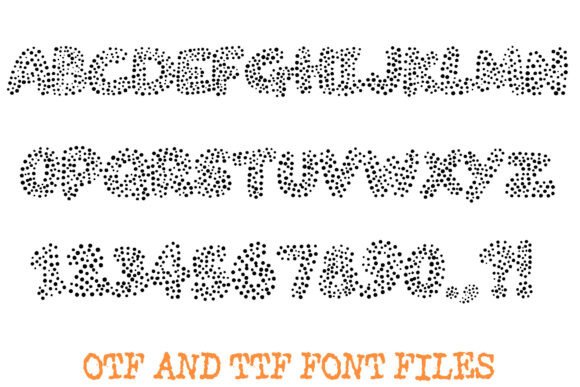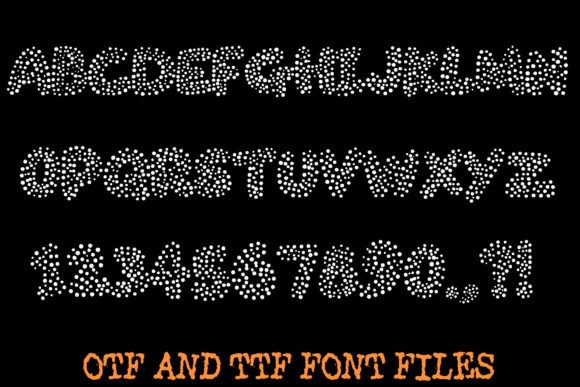
Unleash Your Creativity with the Dotty Spotty Font
Have you ever stared at a blank page, a blank canvas, or a blank screen, waiting for inspiration to strike? For many creatives, that’s a familiar feeling. But what if you could add a dash of whimsy and personality to your work with a single font? Enter the Dotty Spotty Font, a unique and playful alphabet that lets you create your own words and color them to your vision.
This charming font is a game-changer for designers, allowing them to add a touch of fun and individuality to their projects. With the Dotty Spotty Font, you can create eye-catching titles, headings, and even entire designs that reflect your personality and style. Whether you’re a graphic designer, a writer, or a social media enthusiast, this font is sure to inspire your creativity and help you stand out from the crowd.
Dotty Spotty Font Key Features
- Font Family: Dotty Spotty Font is a unique, hand-drawn font family available in two styles: Regular and Bold.
- Unique Characteristics: Dotty Spotty Font features a distinctive, playful design with a mix of round and angular shapes, making it ideal for creative and whimsical projects.
Dotty Spotty Font Review
I’ve had the chance to work with the Dotty Spotty Font, and overall, it’s a fun and playful addition to any design project. ✨ Here are some things that really work well:
- Unique Character: The Dotty Spotty Font has a one-of-a-kind character that’s sure to stand out. It’s perfect for projects that need a touch of whimsy.
- Flexibility: The font comes in a range of weights and styles, making it easy to find the perfect fit for your design.
- Easy to Read: Despite its playful nature, the Dotty Spotty Font is still easy to read, even in smaller sizes.
That being said, there are a few limitations to consider:
- Limited Legibility: While the font is easy to read, it may not be the best choice for long blocks of text.
- Distressed Look: The font’s distressed look can sometimes be overwhelming, making it difficult to read in certain contexts.
- Not Ideal for Body Text: Due to its playful nature, the Dotty Spotty Font is best used as a headline or accent font.
Overall, I think the Dotty Spotty Font is a great addition to any designer’s toolkit. While it may have some limitations, its unique character and flexibility make it a great choice for the right project. ⚠️ Just be mindful of its limitations and use it wisely.
Tips for Getting the Most Out of Dotty Spotty Font
Use Dotty Spotty Font for playful and whimsical designs, such as children’s book illustrations, party invitations, and social media graphics.
To get the most out of this font, experiment with different font sizes, colors, and combinations to create a unique look.
Dotty Spotty Font is commonly used for:
- Children